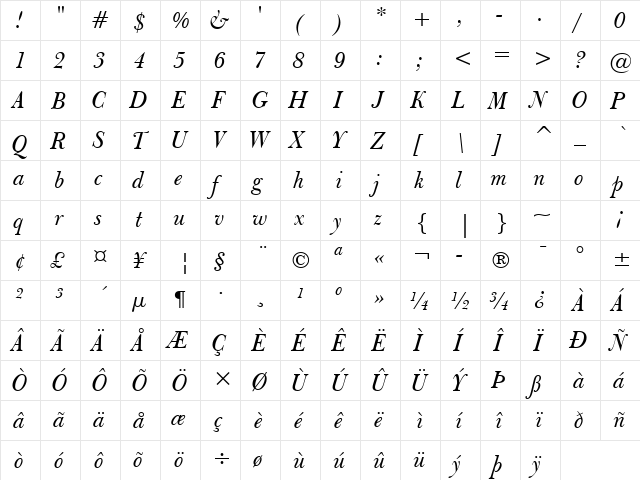
Bulmer Italic
Design Context for Bulmer Typeface
Bulmer takes a measured approach to typography — its balanced proportions and neutral character make it a reliable workhorse for both digital and print work. The slanted form adds forward momentum and visual energy.
Pro Tip: Try Bulmer for annotation and caption copy alongside an upright companion — the contrast in angle creates a dynamic but ordered typographic system.